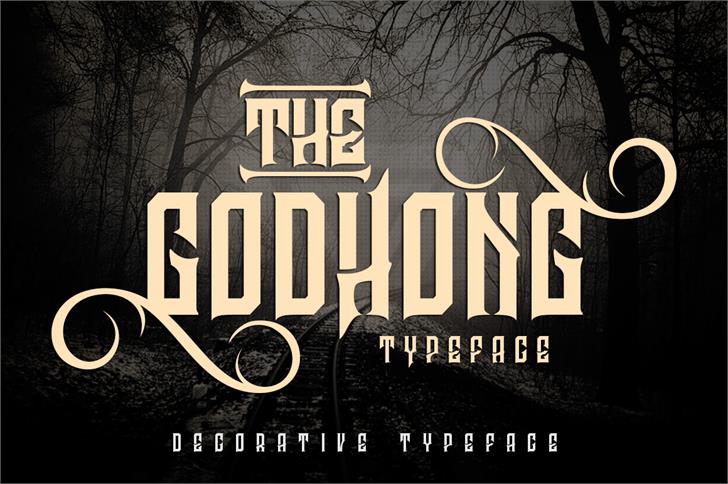
Godhong Font
Godhong is a typeface inspired from gothic and rebel style. The Godhong typeface includes a full set of uppercase and lowercase letters as well as multi-lingual and currency support, numerals, punctuations, alternates, ligatures and some extra glyphs.